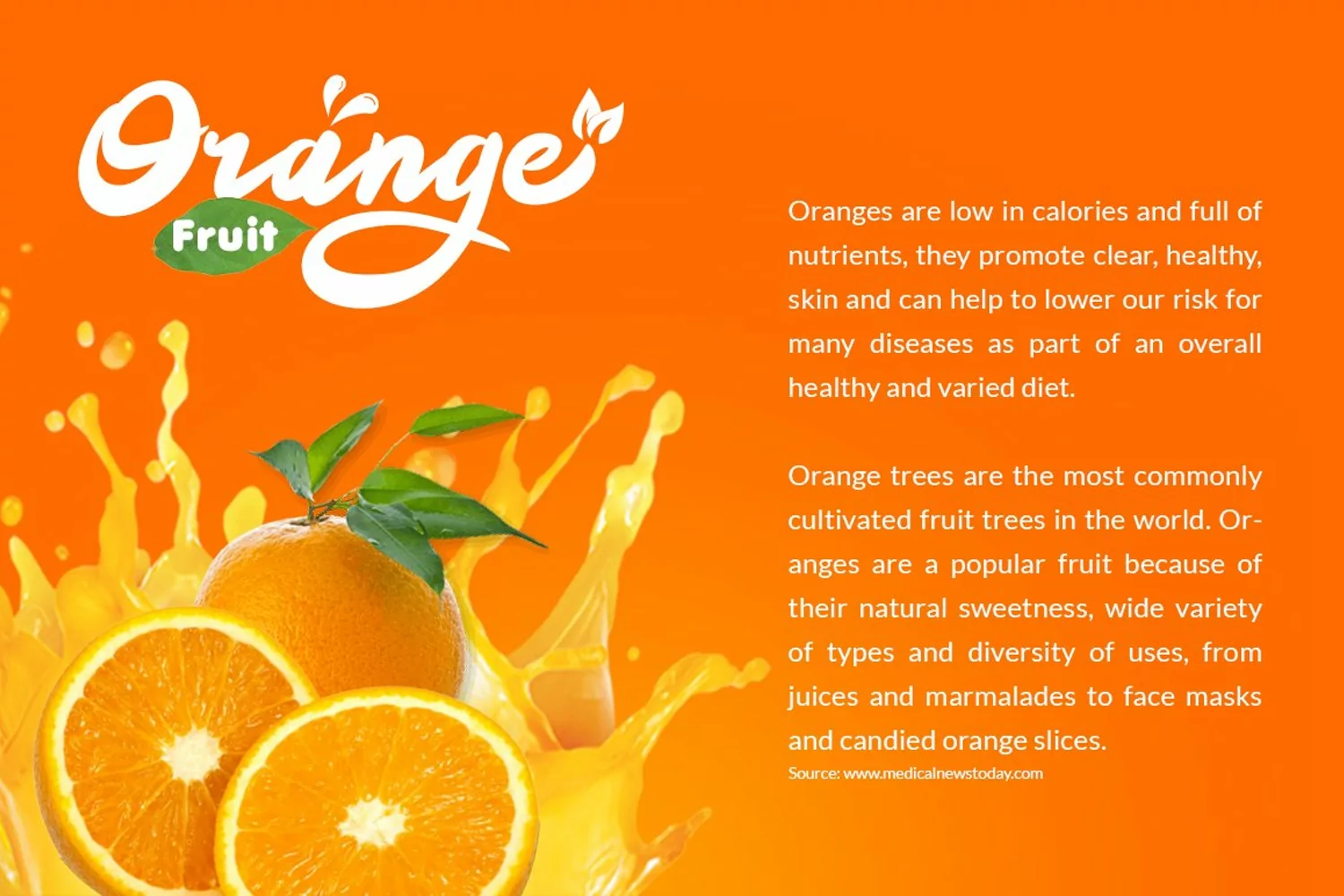
Orange Squash Script Font is a fun bold script font, fresh & modern style . Orange Squash Script Font suitable for logo, branding, greeting card, poster and any design that you create.
Features:- Uppercase
- Punctuation & Numeral
- Support PUA Unicode
- Support Multilingual
- Stylistic alternates with number 1 & 2 after lowercase